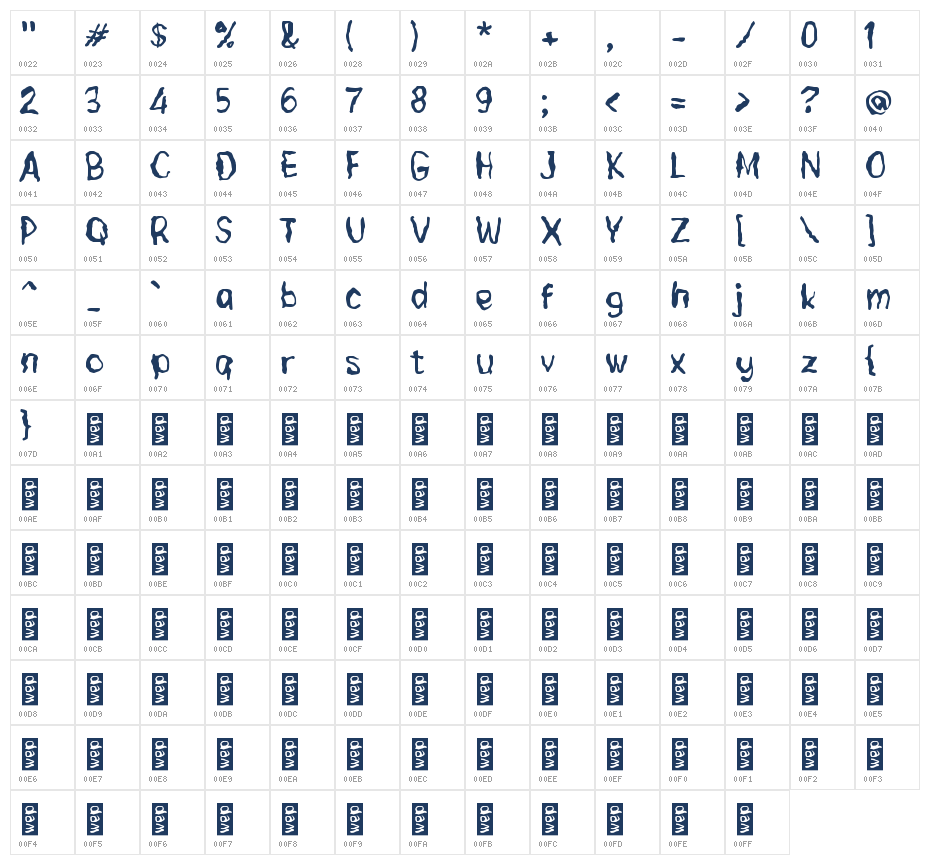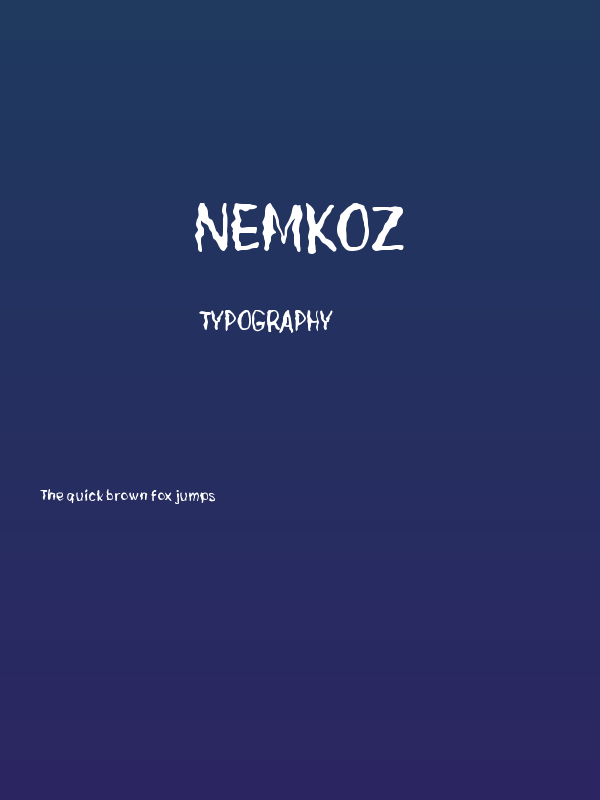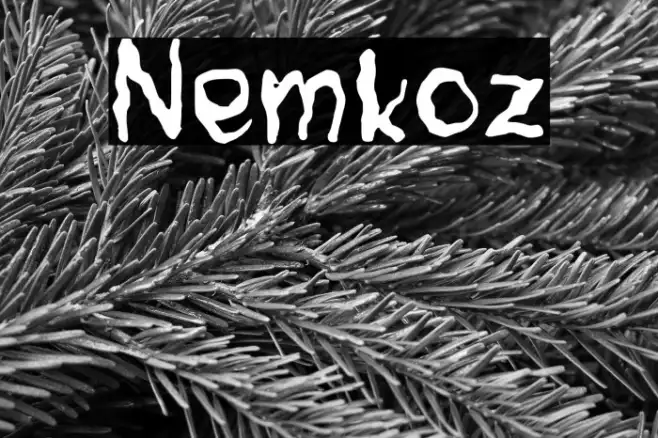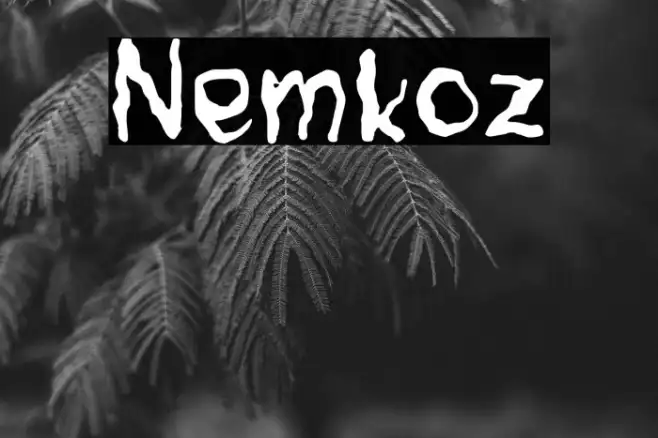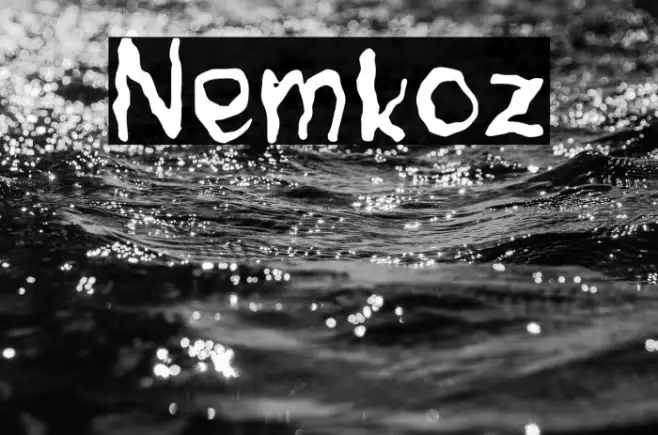
Nemkoz Font
Nemkoz Description
A rough, hand-drawn style font with irregular, jagged edges that resemble a sketch or doodle.
| Overall Style | Casual, Artistic, Hand-drawn |
| Use Case | Headlines, Posters, Children's books, Creative projects |